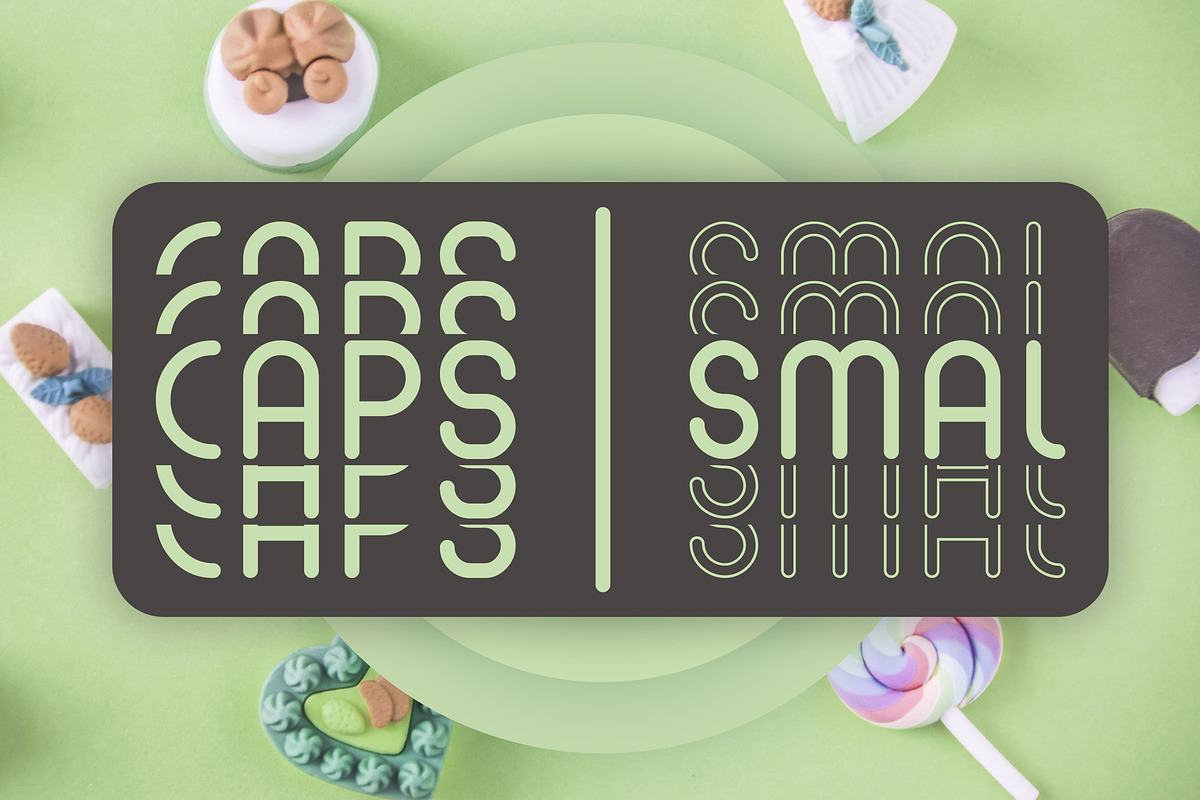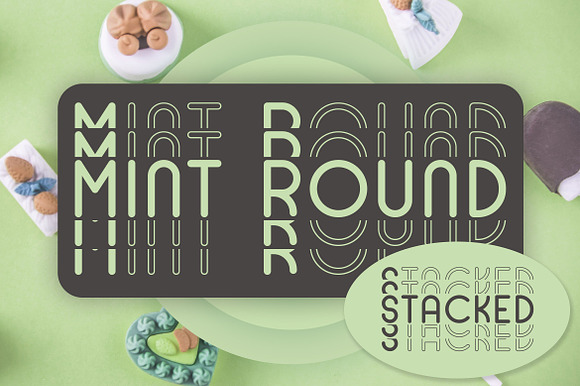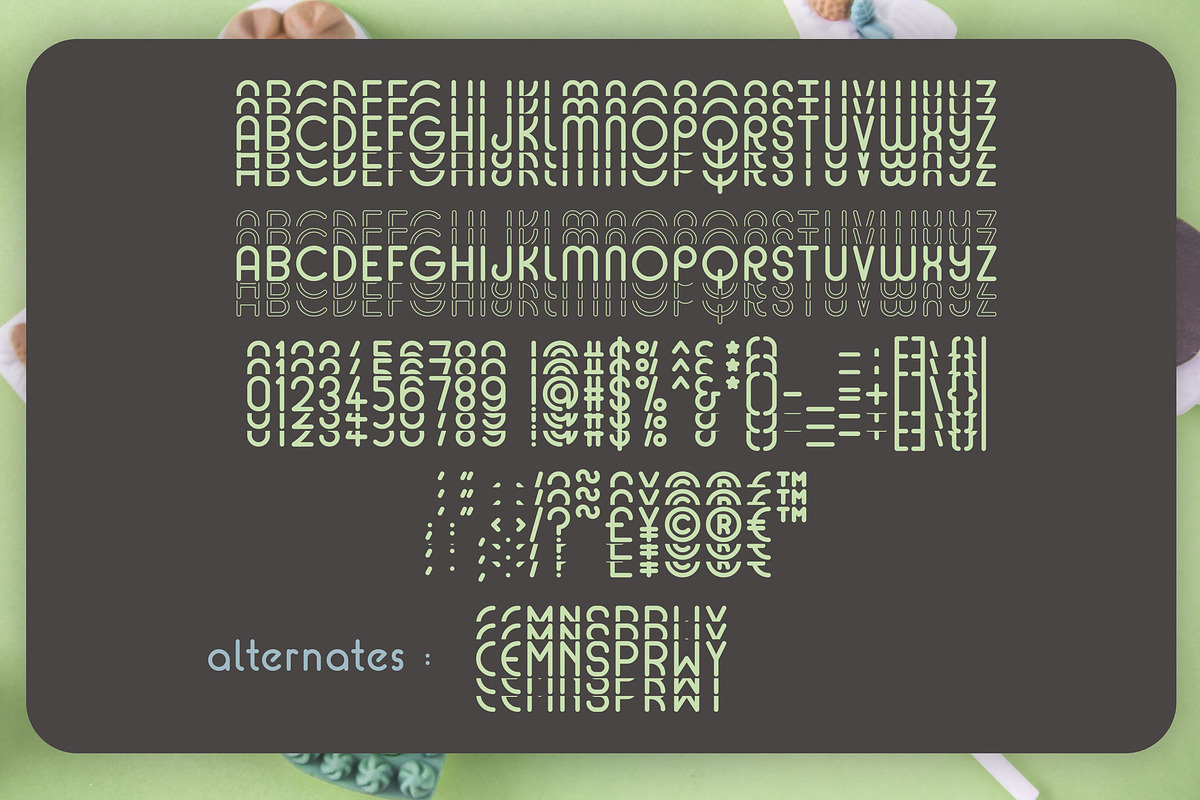
Mint Round - Stacked - Mirrored Font
Mint Round - Stacked - Mirrored Fun Font
- Capitals,
- lowercase,
- numbers,
- symbols and some alternates.
- Mint Round - Stacked - Mirrored Fun Font Included : Capitals, lowercase, numbers, symbols and some alternates.
Why Mint Round - Stacked - Mirrored Font is worth a look
Mint Round - Stacked - Mirrored Font by Dasagani fits naturally into Branding, posters, packaging, typography.